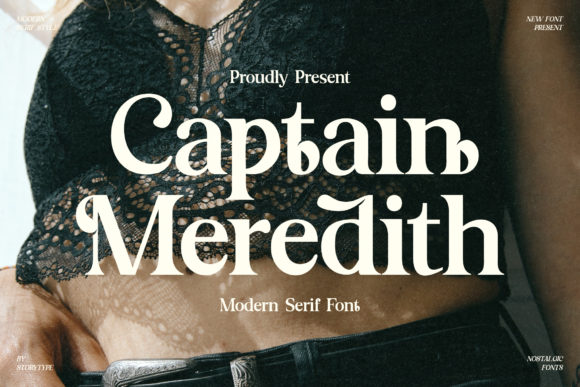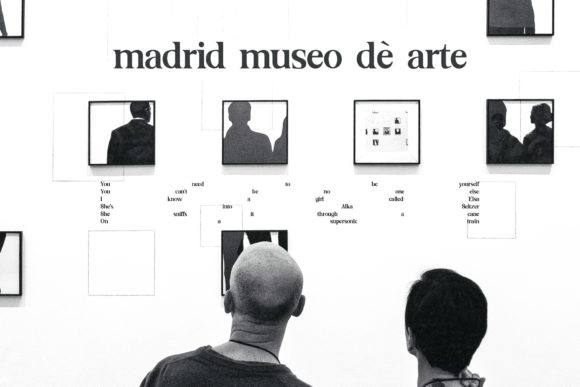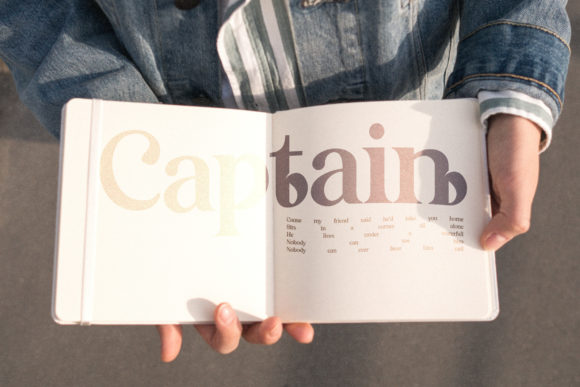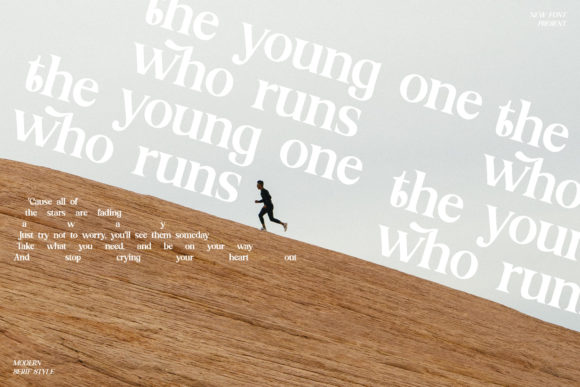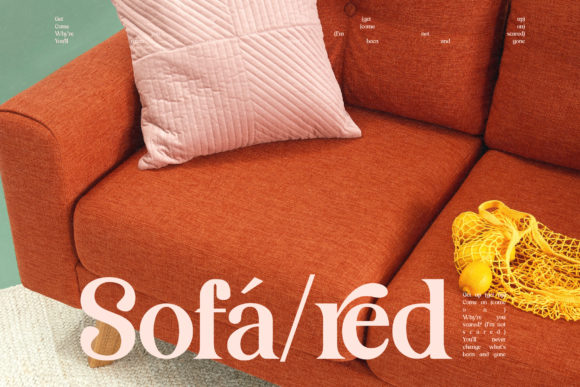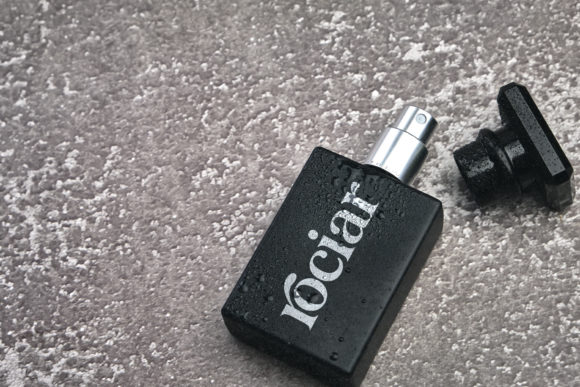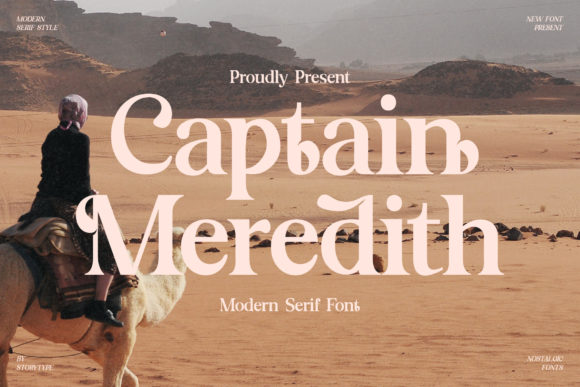
The Elusive Perfect Font: My Encounter with Captain Meredith
I’ll never forget the design project that had me on the hunt for the perfect font. I was working on a luxury brand’s logo, and my client was adamant that it needed to exude elegance and sophistication. I scoured the internet, tried out countless fonts, but nothing seemed quite right. That was until I stumbled upon Captain Meredith Typeface. It was love at first sight! 💕
With its unique blend of modern and classic elements, Captain Meredith quickly became my go-to font for a wide range of projects. In this article, I’ll share my experience with this beautiful typeface, its features, and how to make the most of it in your designs.
An Honest Review of Captain Meredith
- ✨ Unique Style: Captain Meredith has a distinct look that sets it apart from other serif fonts. Its modern take on classic elements makes it perfect for designs that need a touch of sophistication.
- ✅ Ease of Use: The font is PUA encoded, which means accessing glyphs and ligatures is a breeze. No more tedious searching for the right character!
- 💯 Versatility: Whether you’re designing a logo, book title, or fashion brand, Captain Meredith adapts seamlessly to various design needs.
While Captain Meredith is an excellent font, there are a few things to keep in mind:
- ⚠️ Glyph Overload: With so many glyphs and ligatures available, it can be overwhelming to navigate. Take some time to explore the font’s features to get the most out of it.
- 🤔 Pairing Challenges: As with any serif font, finding the perfect pairing can be tricky. Experiment with different fonts to find the perfect match for your design.
The Backstory of Captain Meredith
Legend has it that Captain Meredith Typeface was inspired by the elegant typography of classic sailing vessels. The font’s creator aimed to capture the essence of adventure, sophistication, and refinement in a single typeface. While the story might be fictional, the font’s charm is undeniable.